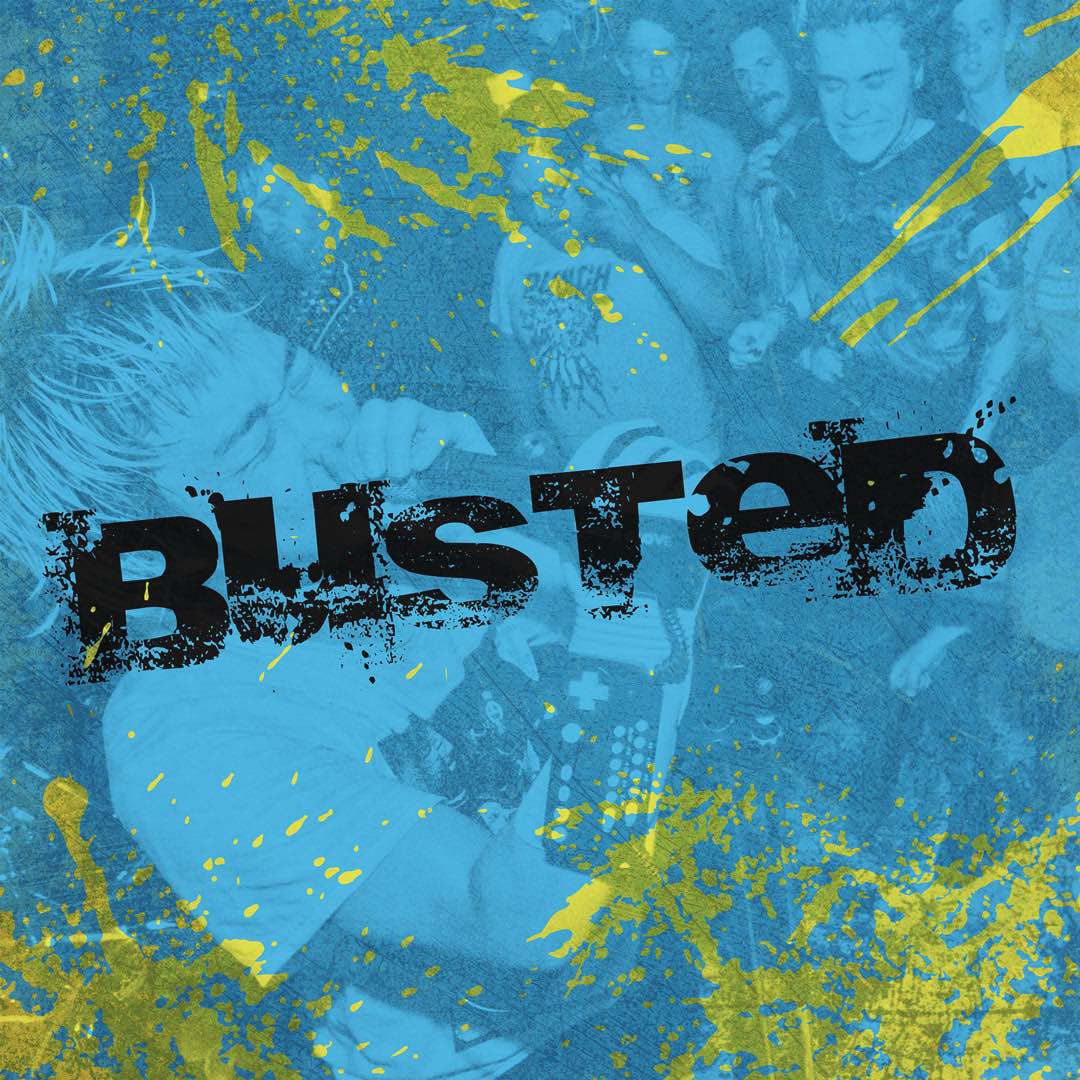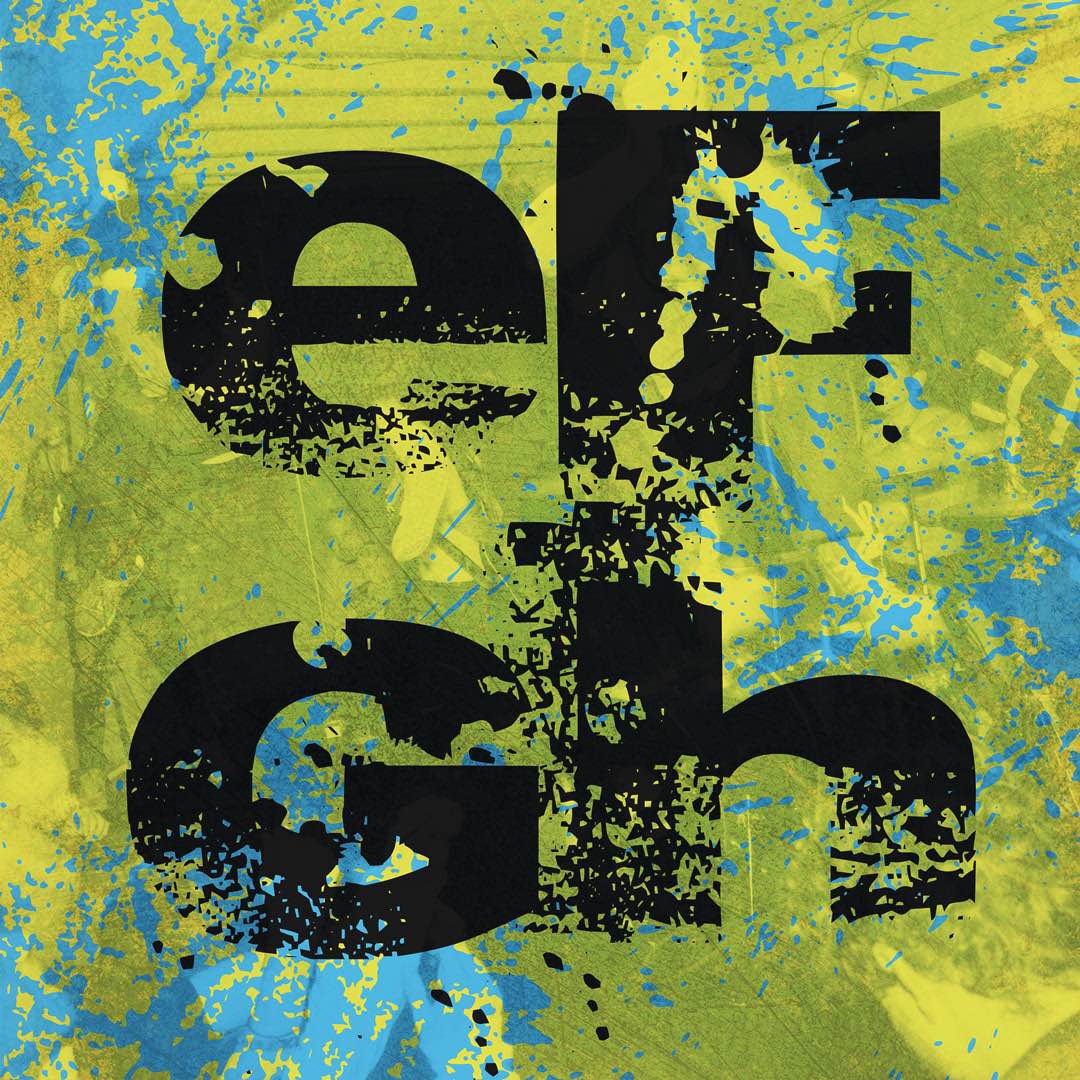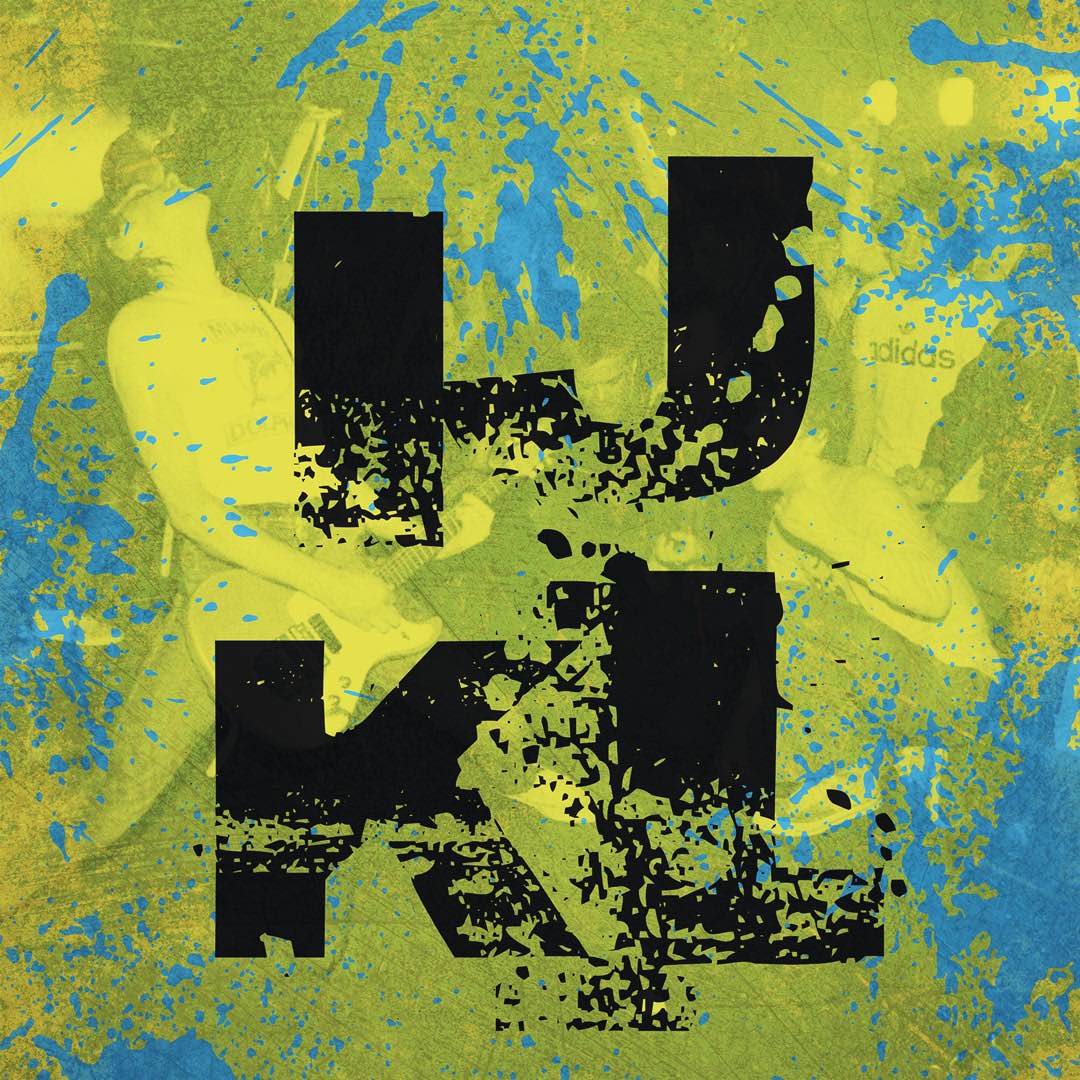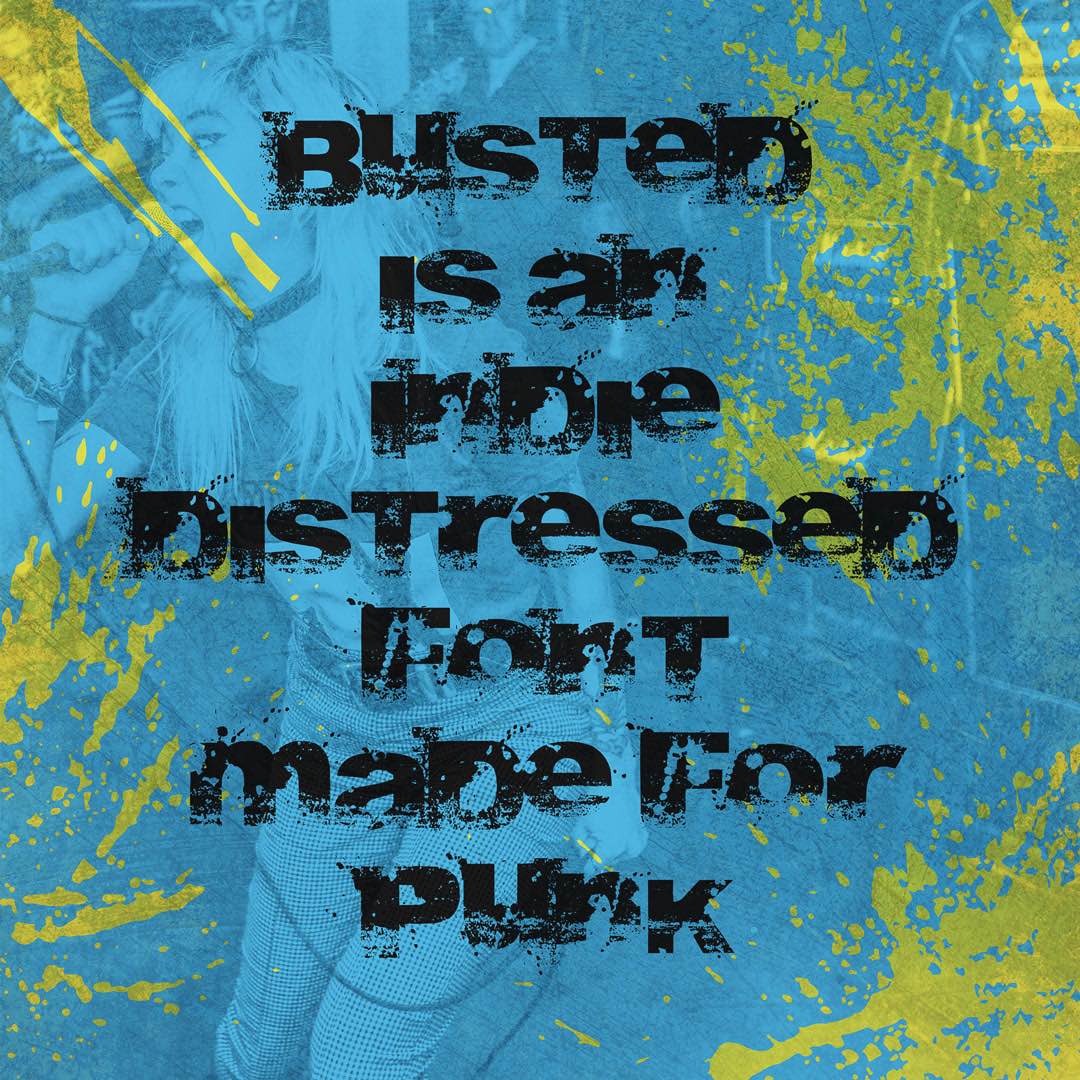
Busted rolls in like a drunk outlaw with ink-stained boots and a chip on its shoulder. This distressed display font is cracked, battered, and beautifully imperfect, like the ghost of a wanted poster or the last gasp of a letterpress machine. Built for bold headlines, vintage rebellion, and designs that don’t play nice, Busted is the visual equivalent of a gravel voice and a flicked cigarette.